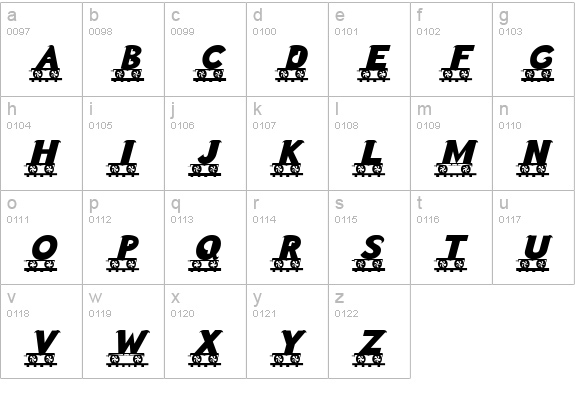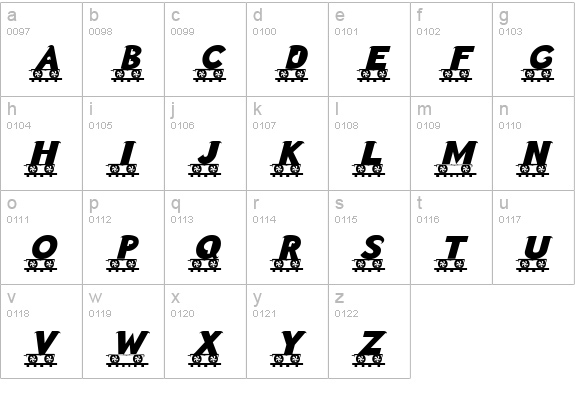
LetterTrain BoldItalic Font Details
LetterTrain BoldItalic is a visually stunning and versatile font that is sure to captivate and inspire. With its bold and italicized design, this font exudes confidence and elegance, making it the perfect choice for a wide range of creative projects. Whether you're designing a logo, creating eye-catching headlines, or crafting beautiful typography for print or digital media, LetterTrain BoldItalic will effortlessly enhance your work with its unique and modern aesthetic. This font features meticulously crafted letterforms that strike the perfect balance between legibility and artistic flair. Each character is carefully designed to stand out and make a bold statement, while maintaining a sense of sophistication and professionalism. The boldness of the letters adds a touch of strength and impact, while the italicized slant adds a sense of movement and dynamism. What's even better is that LetterTrain BoldItalic is available for free! That's right, you can download this amazing font without spending a dime. Simply head over to FontsMarket.com and get your hands on this remarkable typeface. It's as easy as a few clicks, and you'll have access to a font that will elevate your designs to new heights. Don't miss out on this incredible opportunity to enhance your creative projects. Download LetterTrain BoldItalic today and let your imagination run wild. With its exceptional design and the fact that it's freely available, this font is a must-have for any designer, artist, or creative professional. So why wait? Unlock the potential of your designs with LetterTrain BoldItalic and experience the difference it can make.